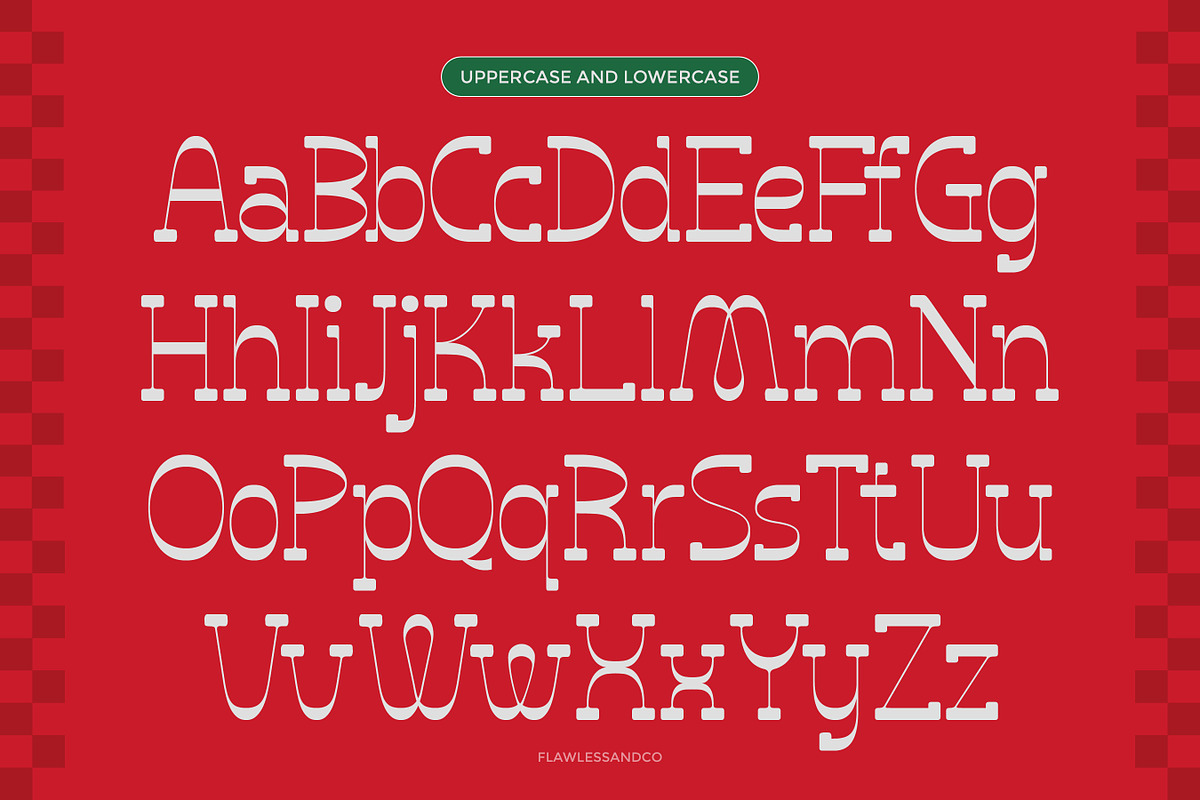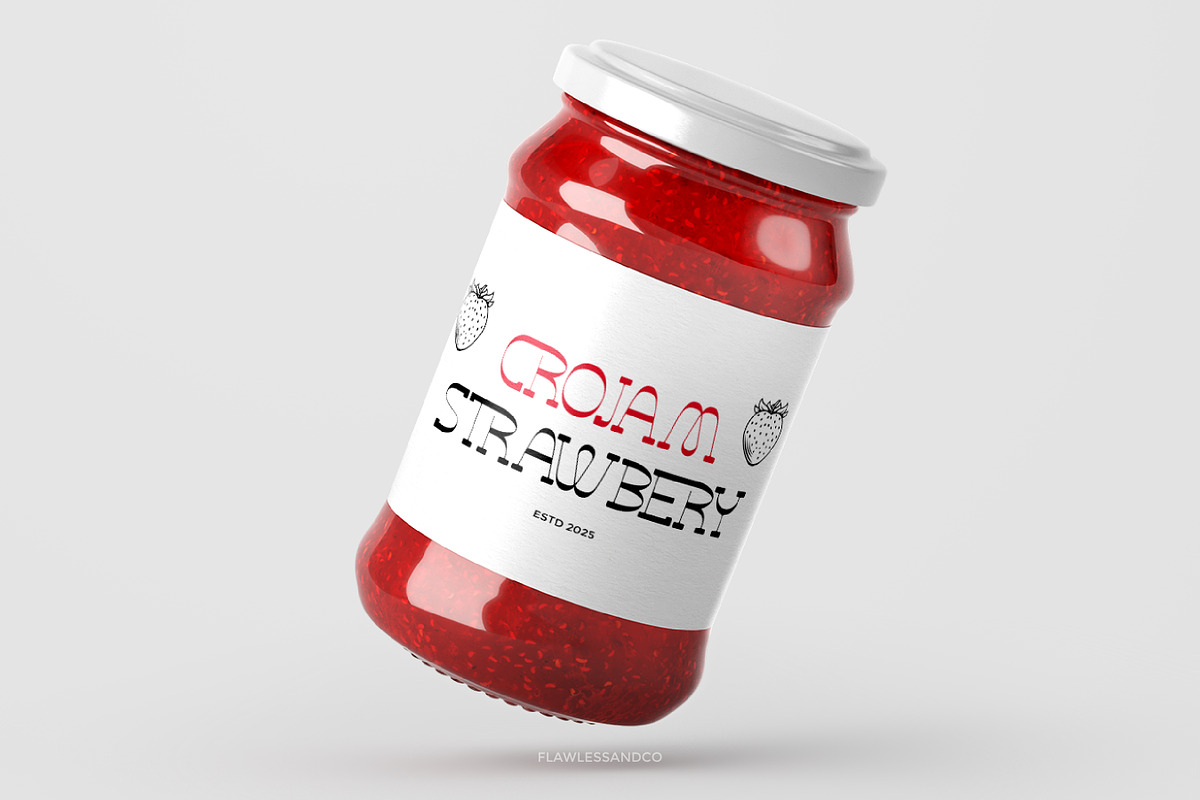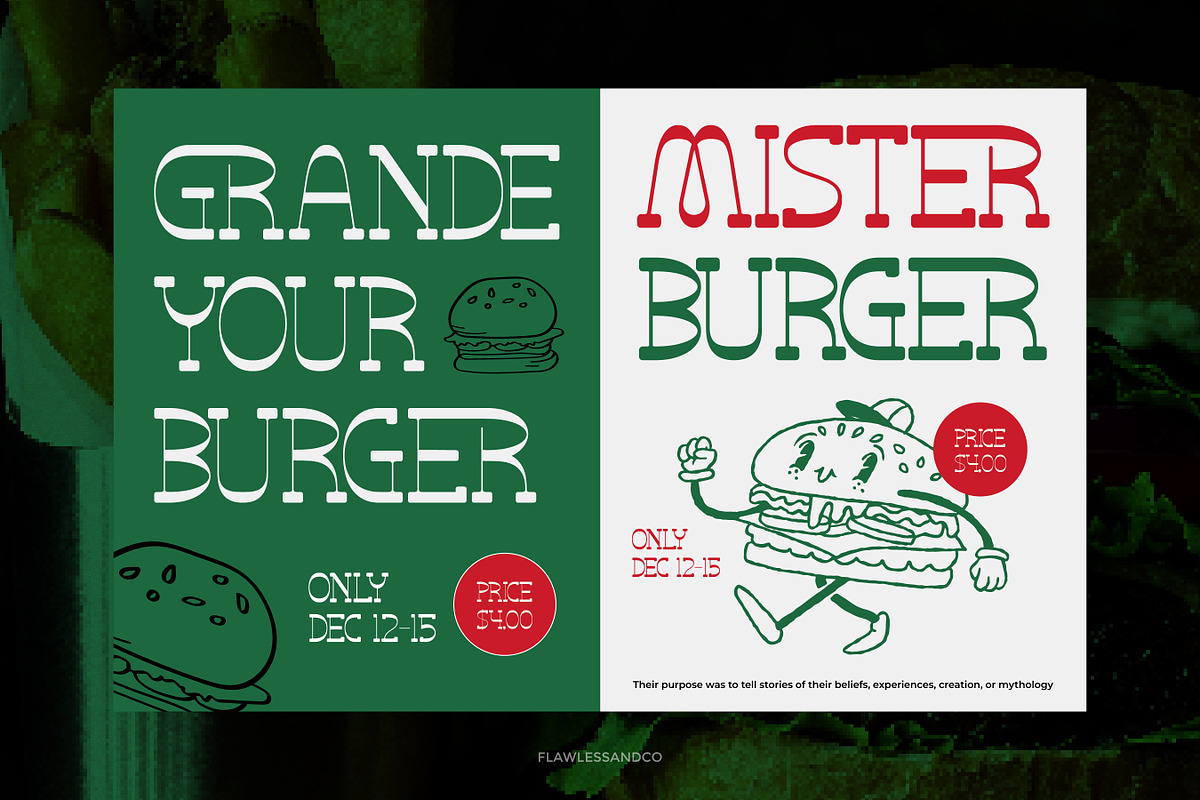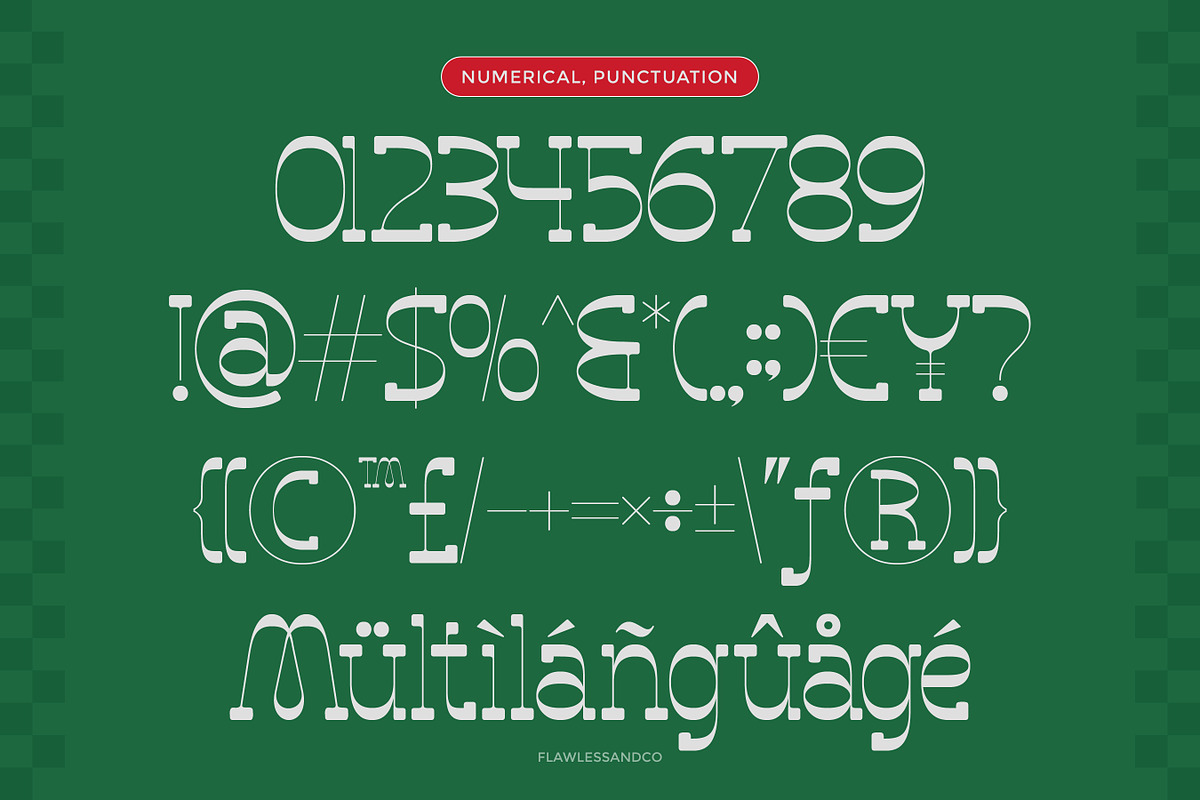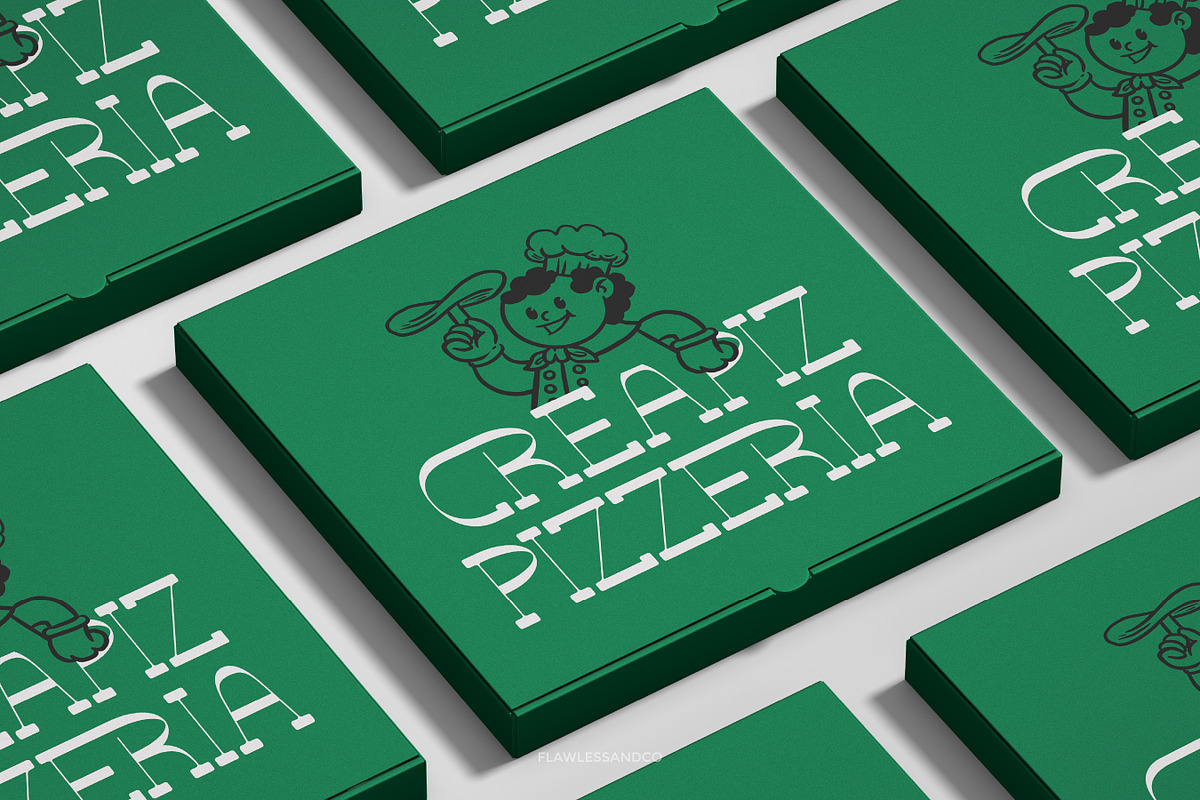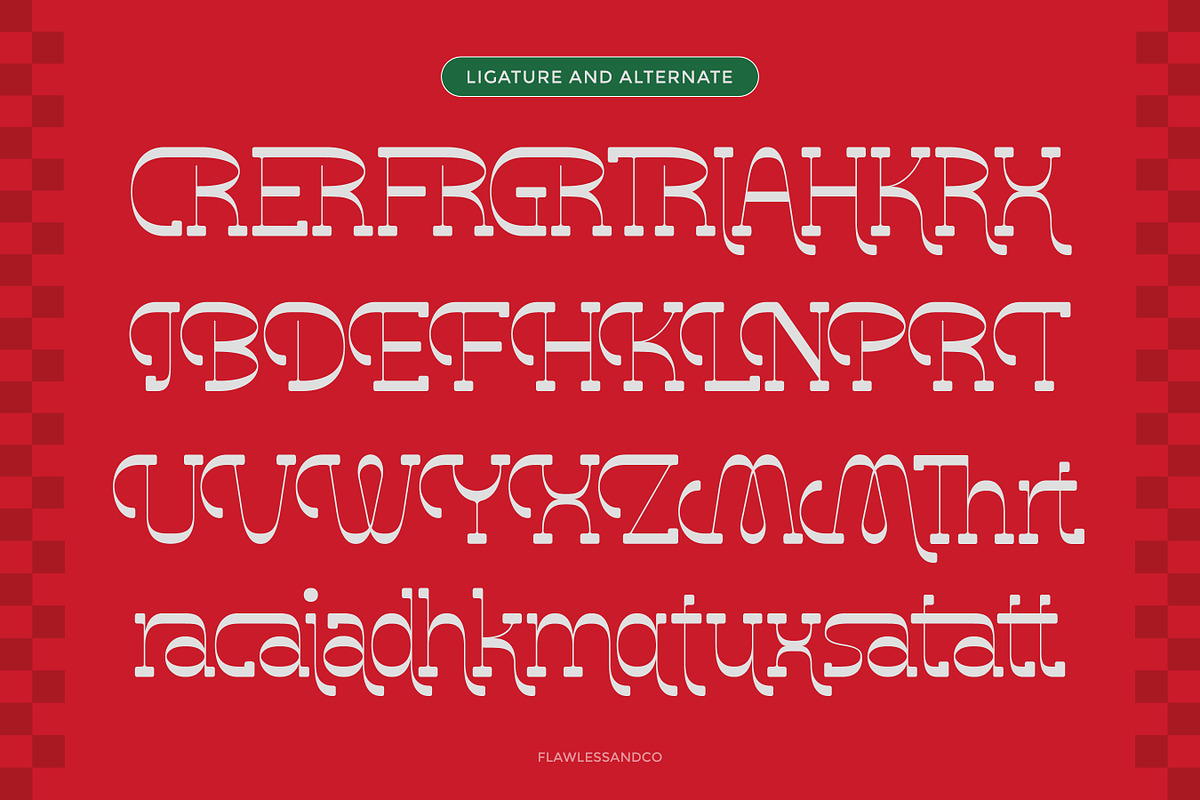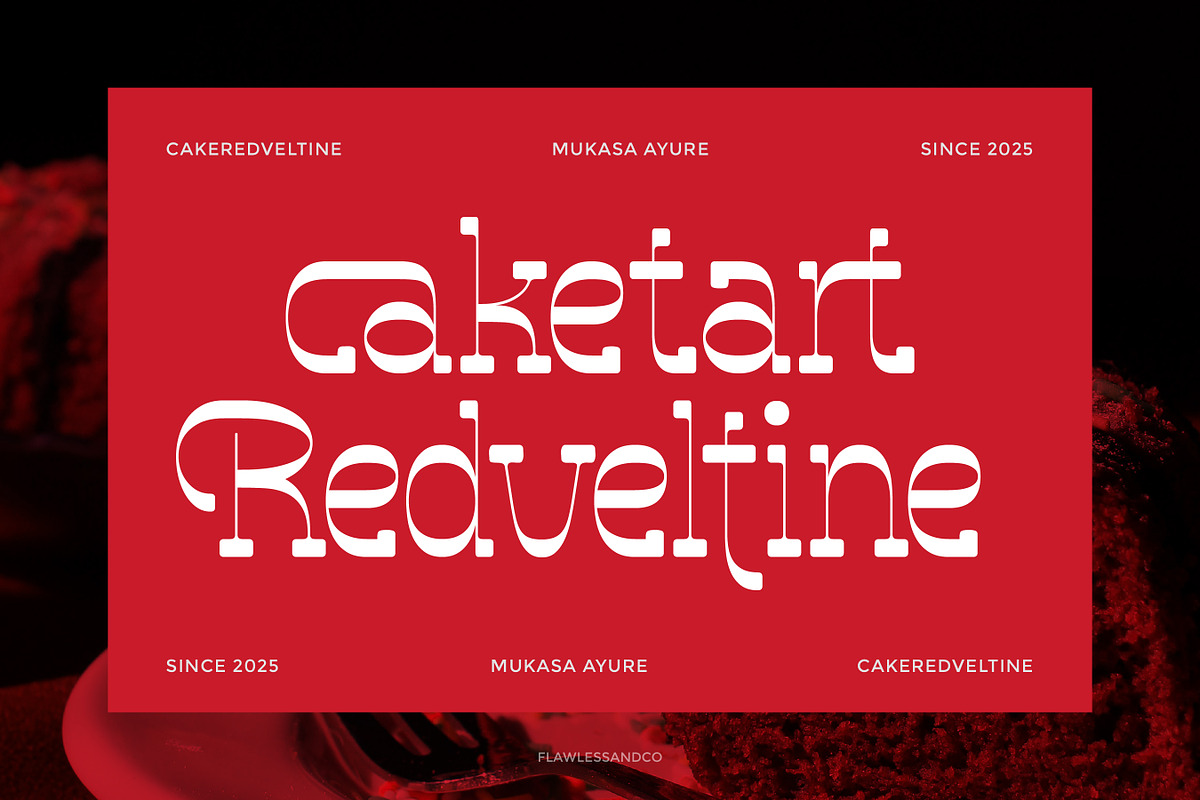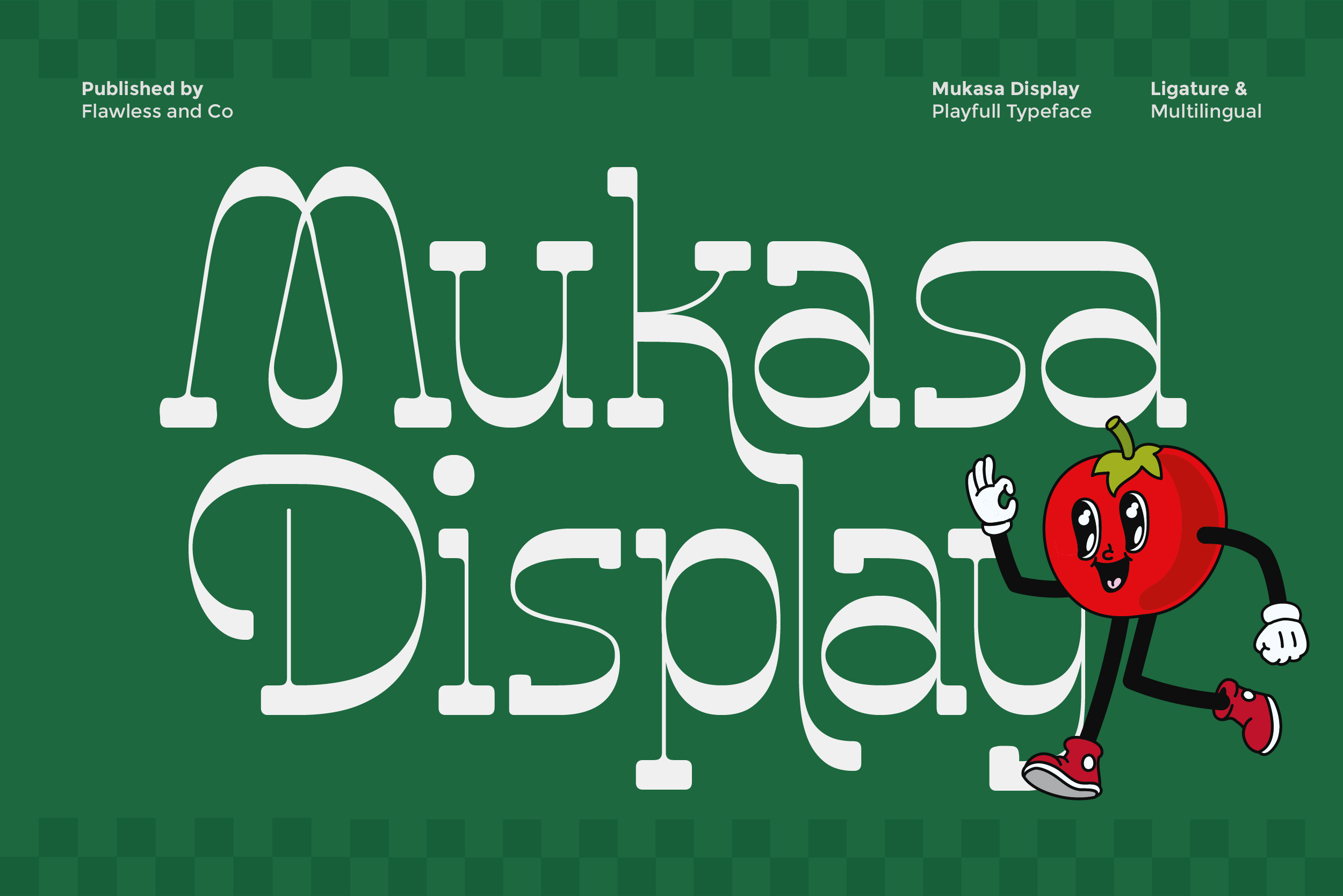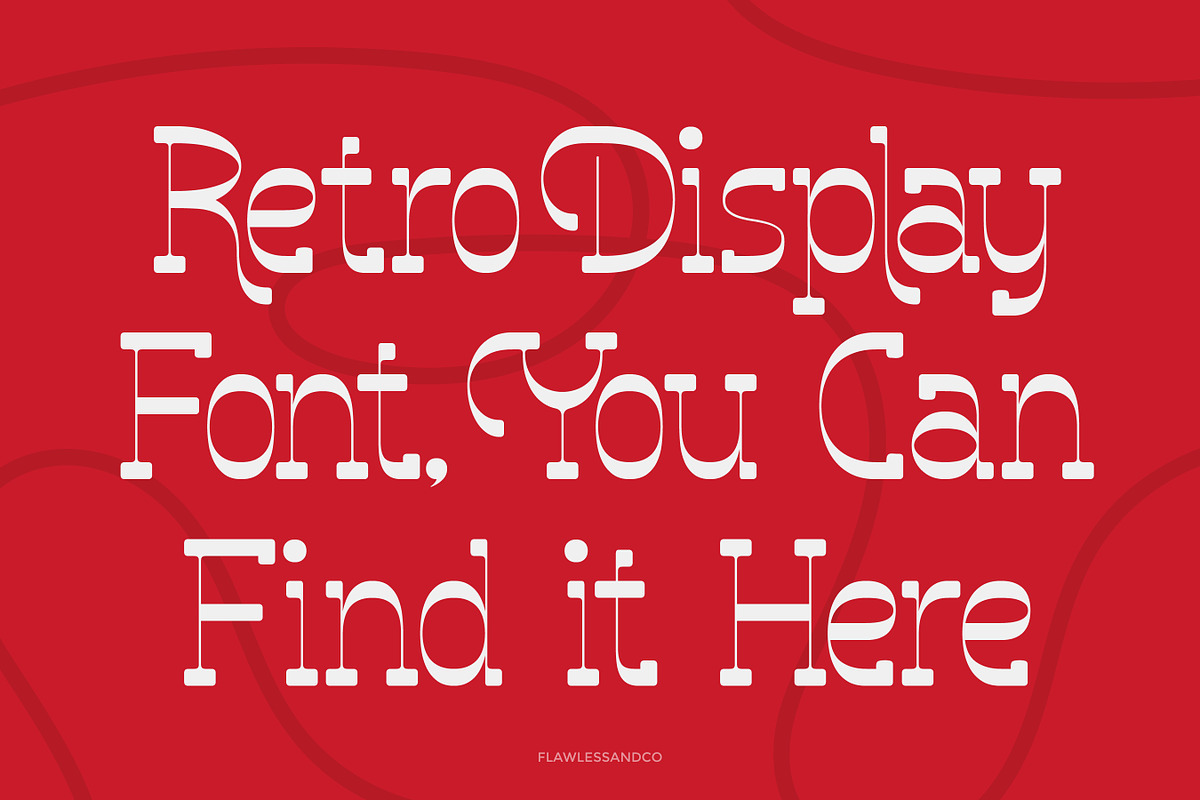
Mukasa - Display Playfull Font
Mukasa is a playful and bold display typeface designed to bring joy, character, and visual impact to your designs. With its rounded forms, quirky curves, and expressive details, Mukasa delivers a fun personality that instantly grabs attention while remaining clear and readable. This font is perfect for projects that need a cheerful, friendly, and creative feel. Mukasa shines in branding, packaging, posters, and any design that wants to stand out with a unique and lively voice.
Who Should Use Mukasa?
Mukasa is perfect for designers and creators who want a fun, playful, and eye-catching display font. It’s ideal for branding projects that need a friendly and cheerful look, especially for creative businesses, kids-related products, and modern visual designs.
Why Choose Mukasa for Brand and Logo Projects?
Mukasa offers a playful and eye-catching style that makes brand and logo designs stand out. Its unique display character brings a fun and friendly feel, helping brands look more creative, modern, and memorable without losing clarity.
Suitable for:
- Brand & logo design
- Creative and playful branding
- Packaging design
- Posters and flyers
- Kids or fun-themed projects
- Social media graphics
- Merchandise and stickers
- Headlines and display text